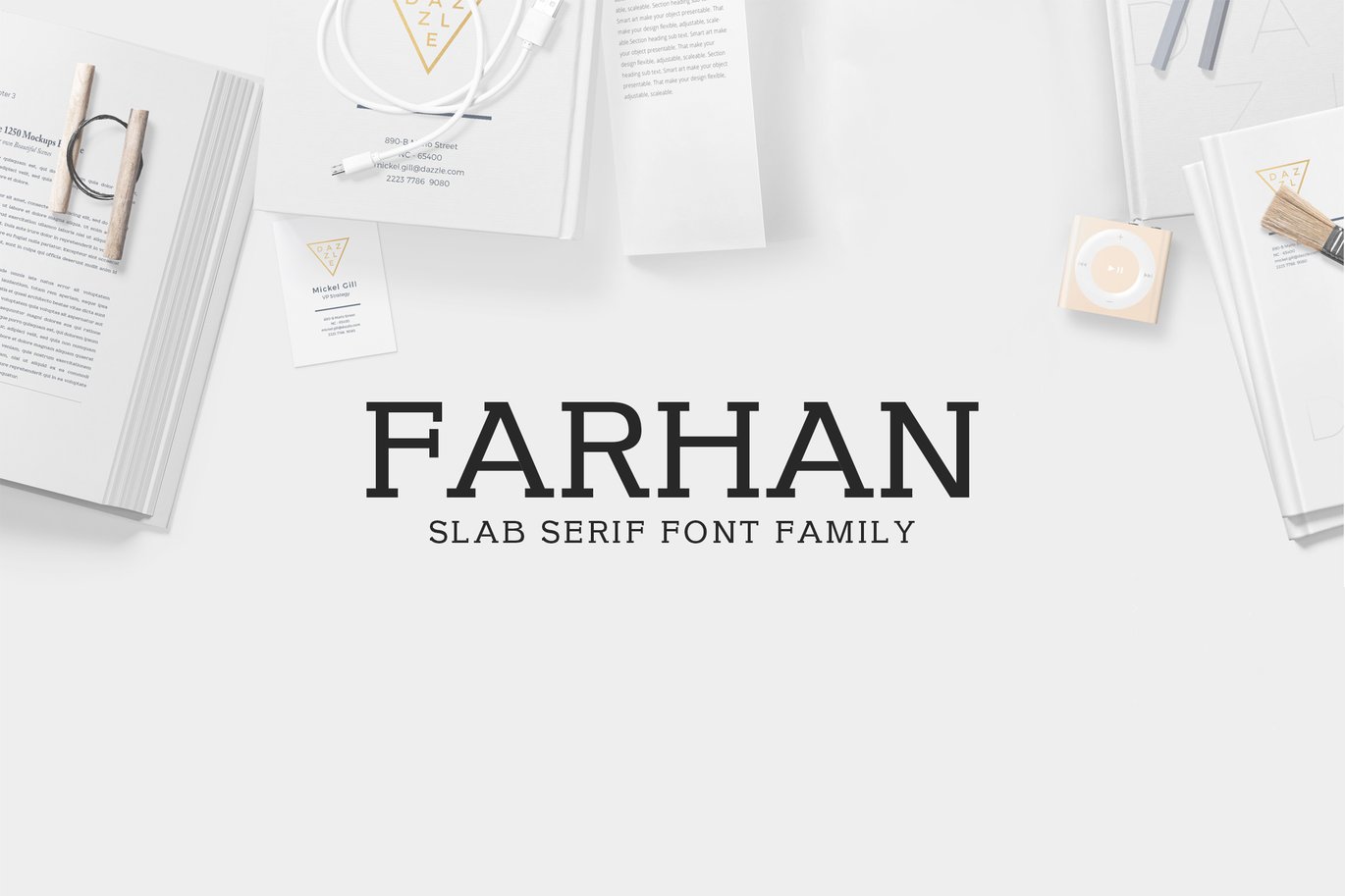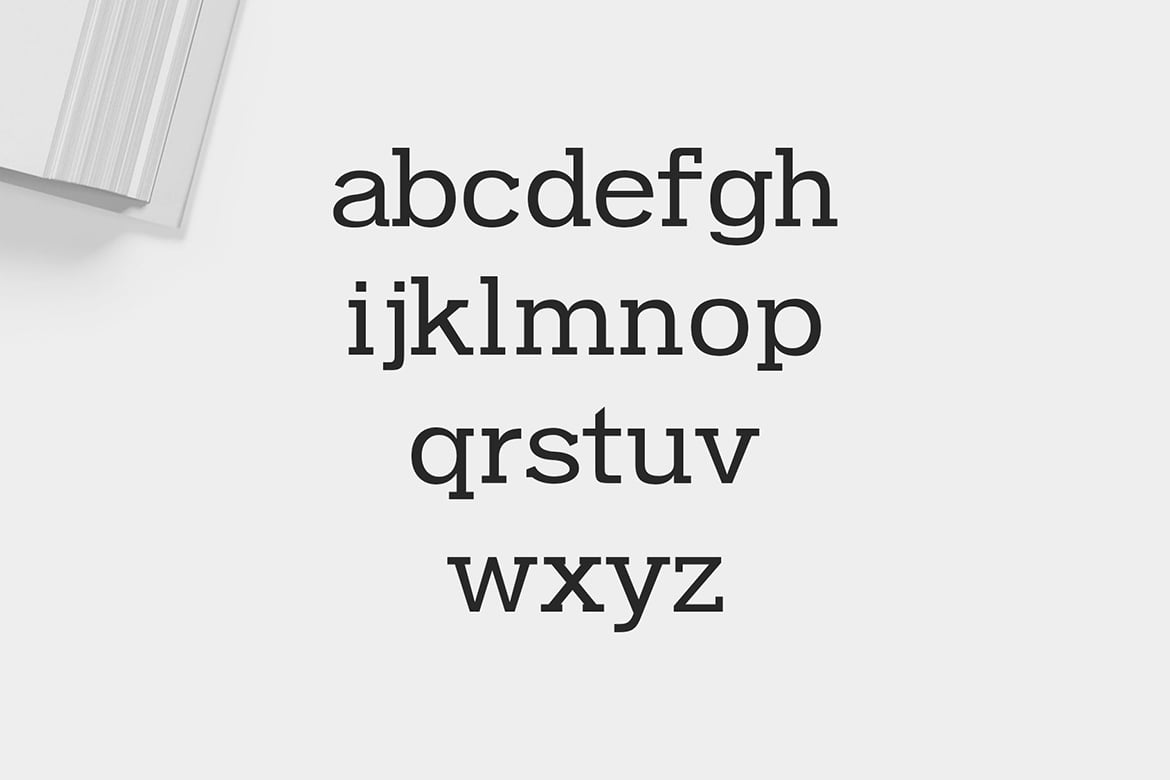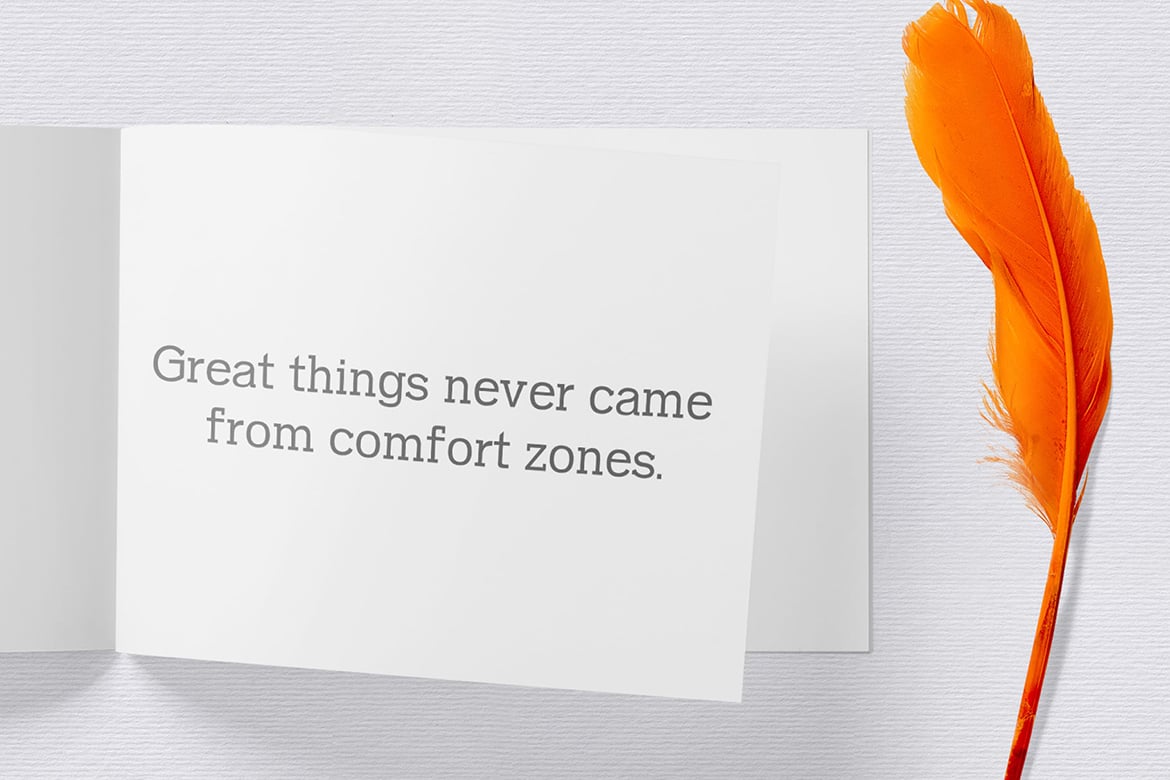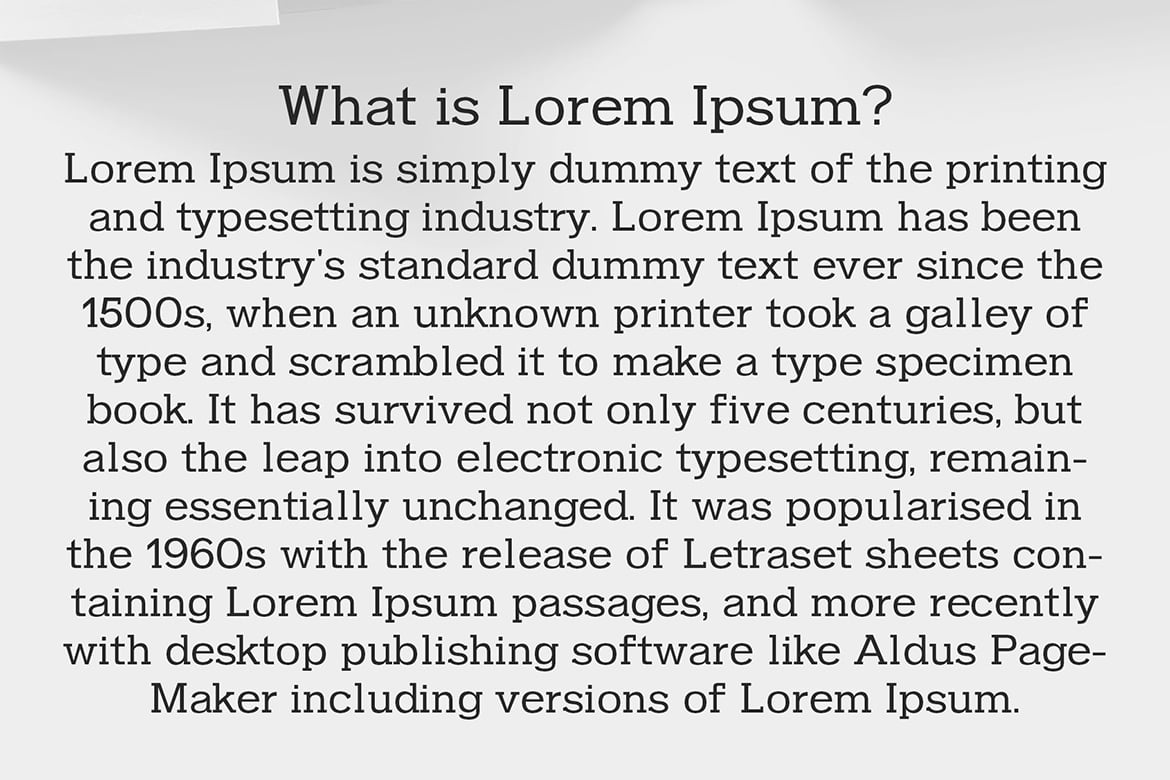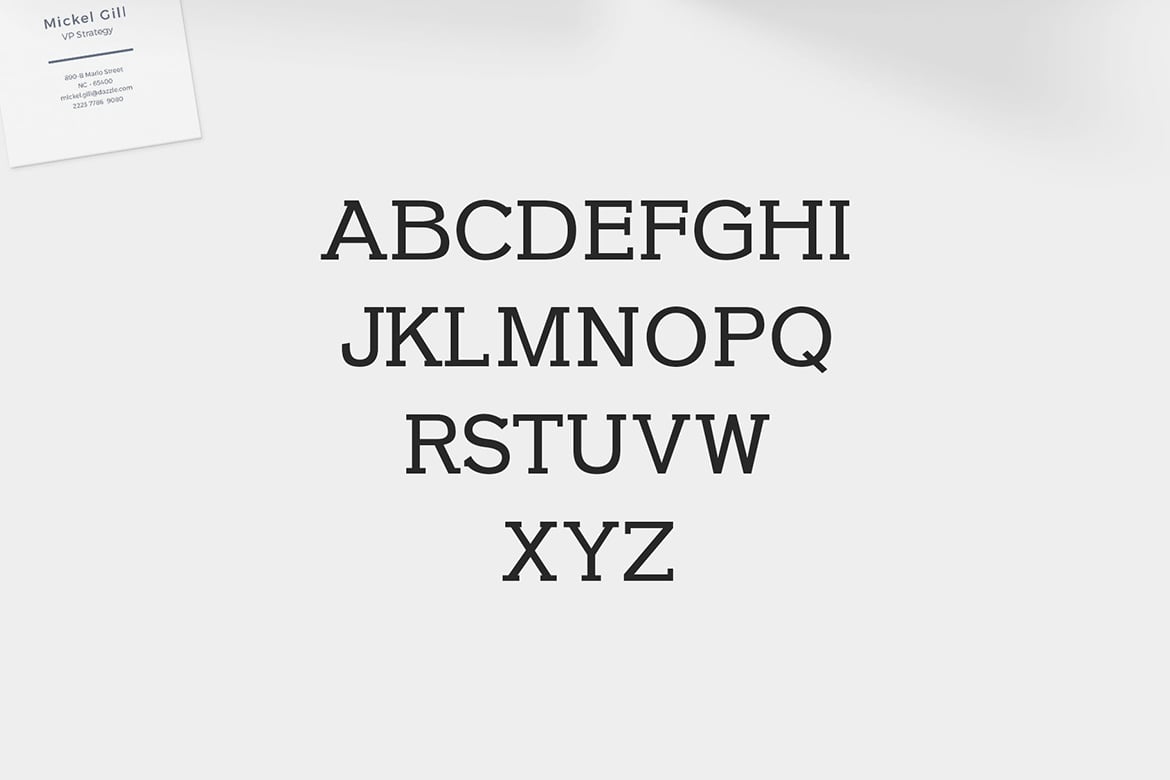
Farhan Slab Serif 5 Font Pack
Farhan is a very unique and strong slab serif typeface. It contains 5 weights. All uppercase, lowercase, punctuation and every standard special character found on a keyboard. Well-suited for editorial projects, logotypes, posters, clean designs, logos, headlines, banners and templates etc.
- Regular, Light, Thin, Outline and Bold
Farhan Font Features:
- Uppercase Multilingual Letters
- Lowercase Multilingual Letters
- Non English Characters ( Latin Supplement + Latin Extended A )